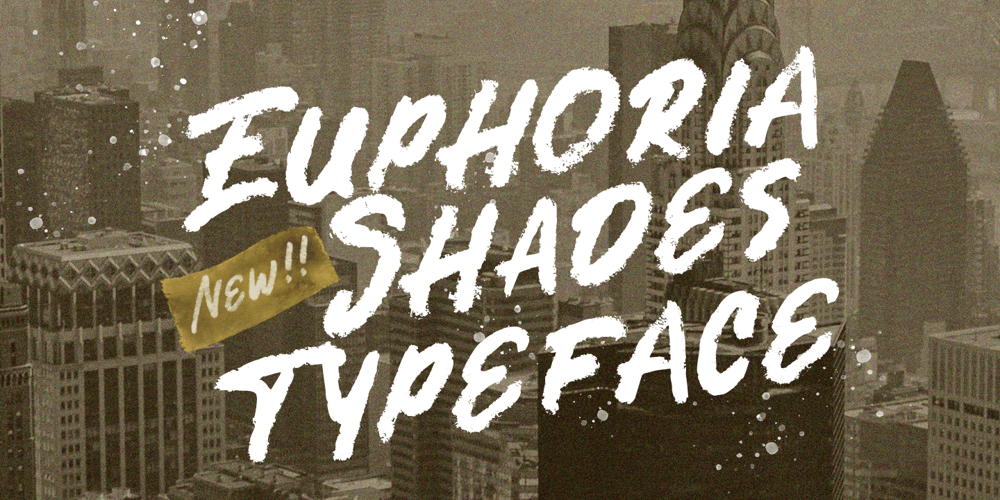
Euphoria Shades Font Family was designed by Hendry Juanda and published by Letterhend. Euphoria Shades contains 1 styles and family package options. Euphoria Shades is a textured font designed to enhance your designs with its unique style, this font allowing you to choose the level of texture and intensity that best suits your project. The textured elements of the font add an eye-catching quality, making it stand out and capture attention.This font truly chic in a wide range of design applications. Whether you’re working on branding projects, advertising materials, posters, or social media graphics, Euphoria Shades can effortlessly elevate your designs and engages the audience.Features : Uppercase & lowercase Numbers and punctuation Alternates Character Multilingual PUA encoded We highly recommend using a program that supports OpenType features and Glyphs panels like many of Adobe apps and Corel Draw, so you can see and access all Glyph variations.